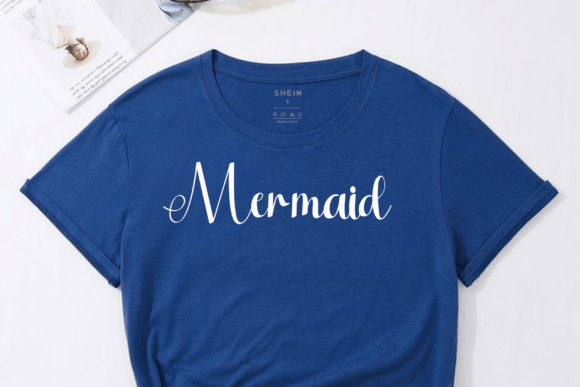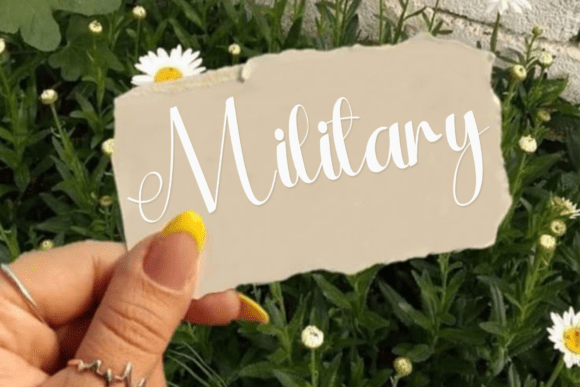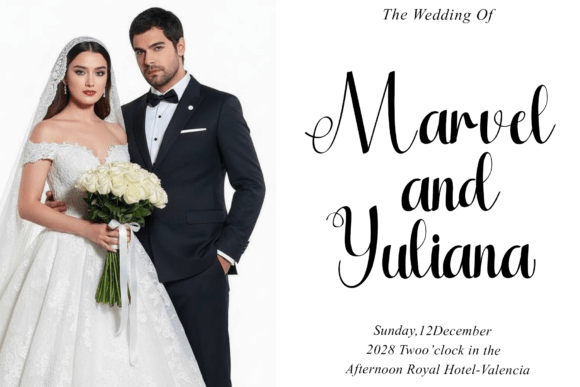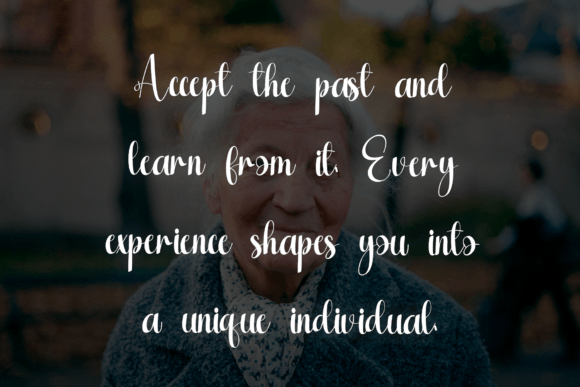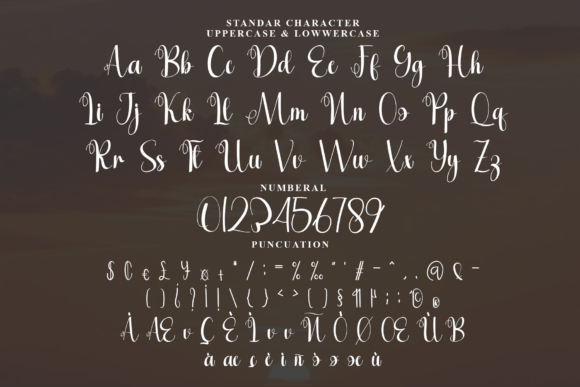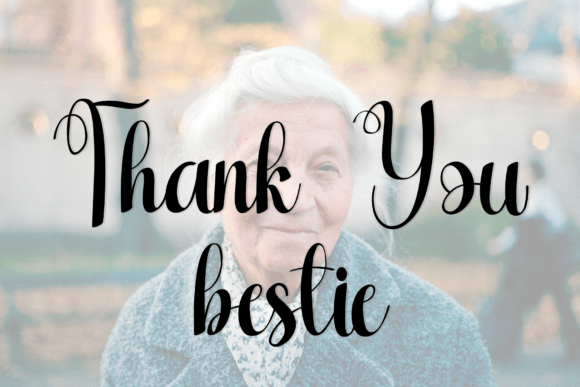
Introducing Grandma Font: A Unique and Professional Handwritten Collection
In the world of typography, handwritten fonts have gained immense popularity for their ability to add a personal touch to designs. Among these, the Grandma Font stands out as a “unique and professional” entry into the modern handwritten collection. Designed to evoke a sense of clarity and crisp elegance, Grandma Font is perfect for designers and crafters looking to add a refined aesthetic to their projects.
Design Characteristics of Grandma Font
Grandma Font is characterized by its tall, thin strokes and subtle, airy slant. This distinctive design offers a clean and approachable style that feels as fresh as a mountain breeze. The font’s elegant appearance makes it an excellent choice for various design applications, including travel photography, branding for outdoor gear, and sophisticated web design.
Key Features of Grandma Font
- Tall and Thin Strokes: The font’s tall, thin strokes give it a unique and elegant appearance, making it perfect for headlines, titles, and other design elements where clarity and sophistication are key.
- Subtle, Airy Slant: The subtle slant of Grandma Font adds a touch of dynamism and movement, making it ideal for designs that require a sense of energy and freshness.
- Clean and Approachable Style: The font’s clean and approachable style makes it versatile and easy to use in various design contexts, from travel and outdoor branding to web design and photography.
Use Cases for Grandma Font
Grandma Font’s versatility and elegance make it suitable for a wide range of design applications. Here are some use cases where Grandma Font truly shines:
Travel Photography
For travel photographers, Grandma Font offers a perfect blend of elegance and approachability. Its clean lines and subtle slant make it ideal for titling travel blogs, Instagram posts, and photo albums. The font’s fresh and airy feel evokes a sense of adventure and wanderlust, complementing stunning travel visuals.
Branding for Outdoor Gear
Outdoor gear brands require typography that reflects their connection to nature and commitment to quality. Grandma Font’s tall, thin strokes and subtle slant make it an excellent choice for branding outdoor gear, such as hiking boots, camping equipment, and eco-friendly apparel. The font’s refined aesthetic conveys a sense of sophistication and reliability, resonating with outdoor enthusiasts.
Sophisticated Web Design
In web design, typography plays a crucial role in creating a user-friendly and visually appealing experience. Grandma Font’s clean and approachable style makes it perfect for web design projects that require a touch of elegance and sophistication. From fashion and lifestyle websites to blogs and online portfolios, Grandma Font adds a refined touch to any digital platform.
Why Choose Grandma Font?
With so many handwritten fonts available, why choose Grandma Font? Here are a few reasons why designers and crafters love Grandma Font:
- Unique and Professional: Grandma Font offers a unique and professional take on handwritten typography, setting it apart from more generic fonts.
- Versatile: The font’s clean and approachable style makes it versatile and easy to use in various design contexts.
- Elegant: Grandma Font’s tall, thin strokes and subtle slant give it an elegant appearance that’s perfect for designs that require a touch of sophistication.
Grandma Font is a beautiful and elegant handwritten font that offers a unique and professional take on modern typography. Its tall, thin strokes, subtle slant, and clean style make it perfect for designers and crafters looking to add a refined aesthetic to their projects. Whether you’re working on travel photography, branding for outdoor gear, or sophisticated web design, Grandma Font is an excellent choice. With its versatility, elegance, and professional appeal, Grandma Font is sure to become a favorite in your typography collection.